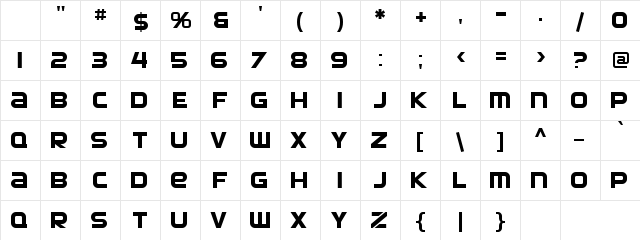
Marcon Kicker Regular
Design Context for Marcon Kicker Typeface
Marcon Kicker offers clean, dependable letterforms without strong stylistic allegiance, making it a practical choice for designers who need flexibility.